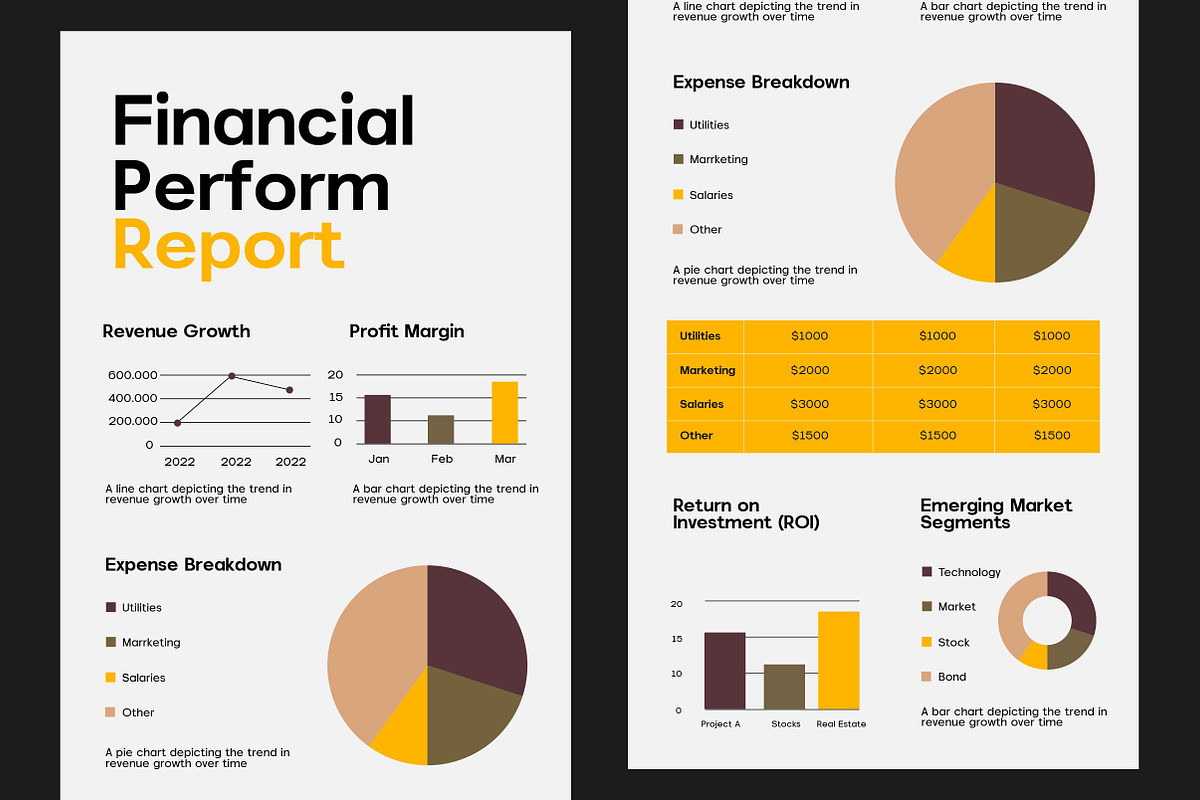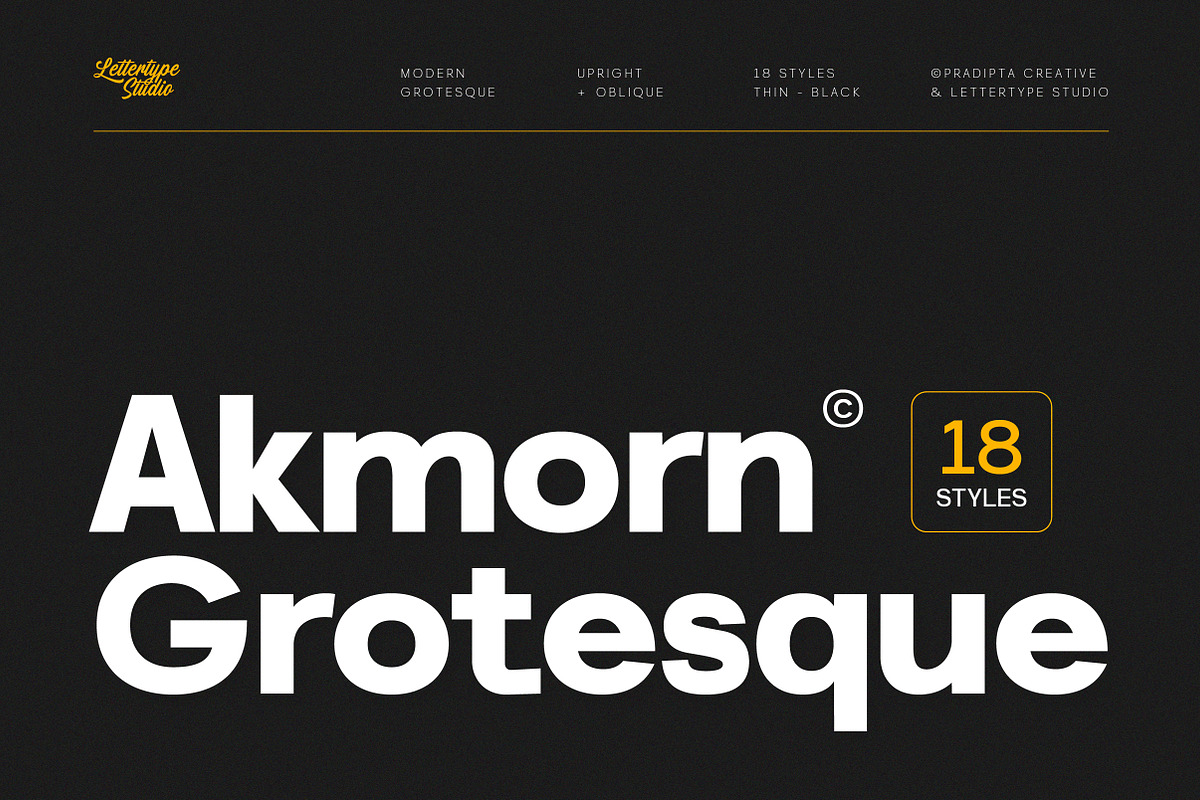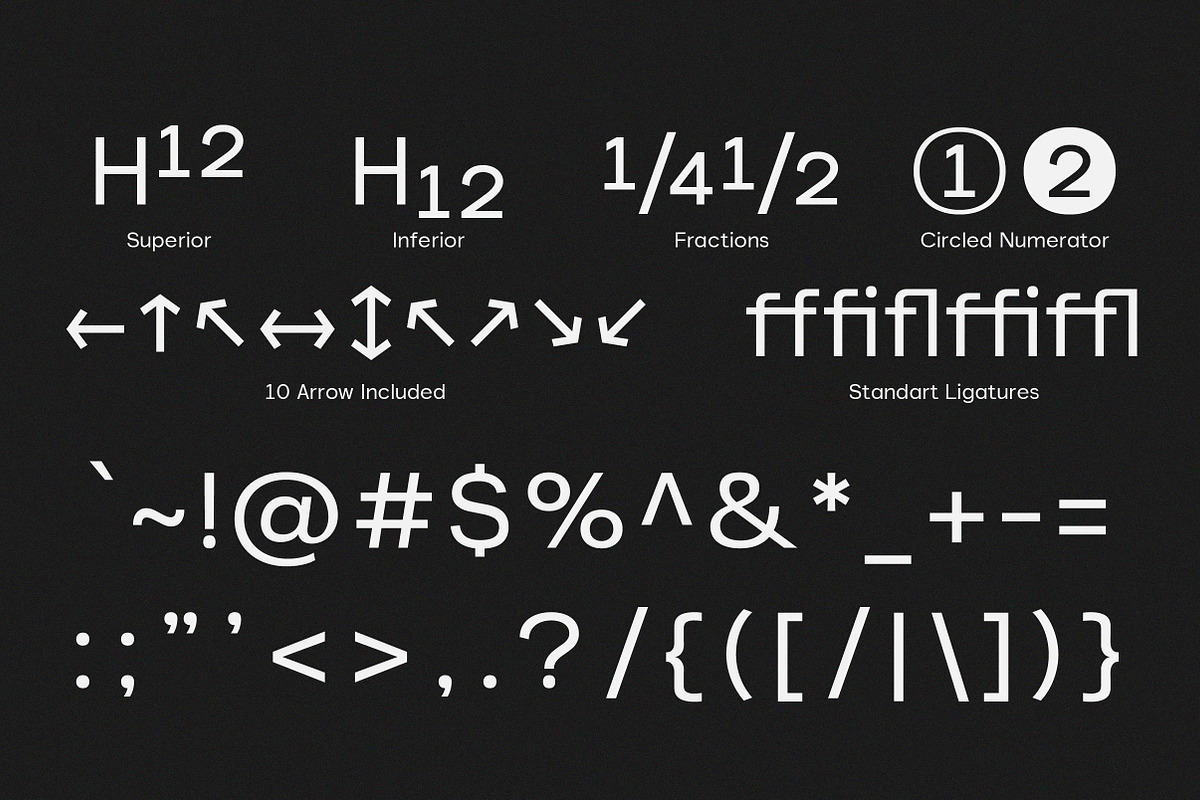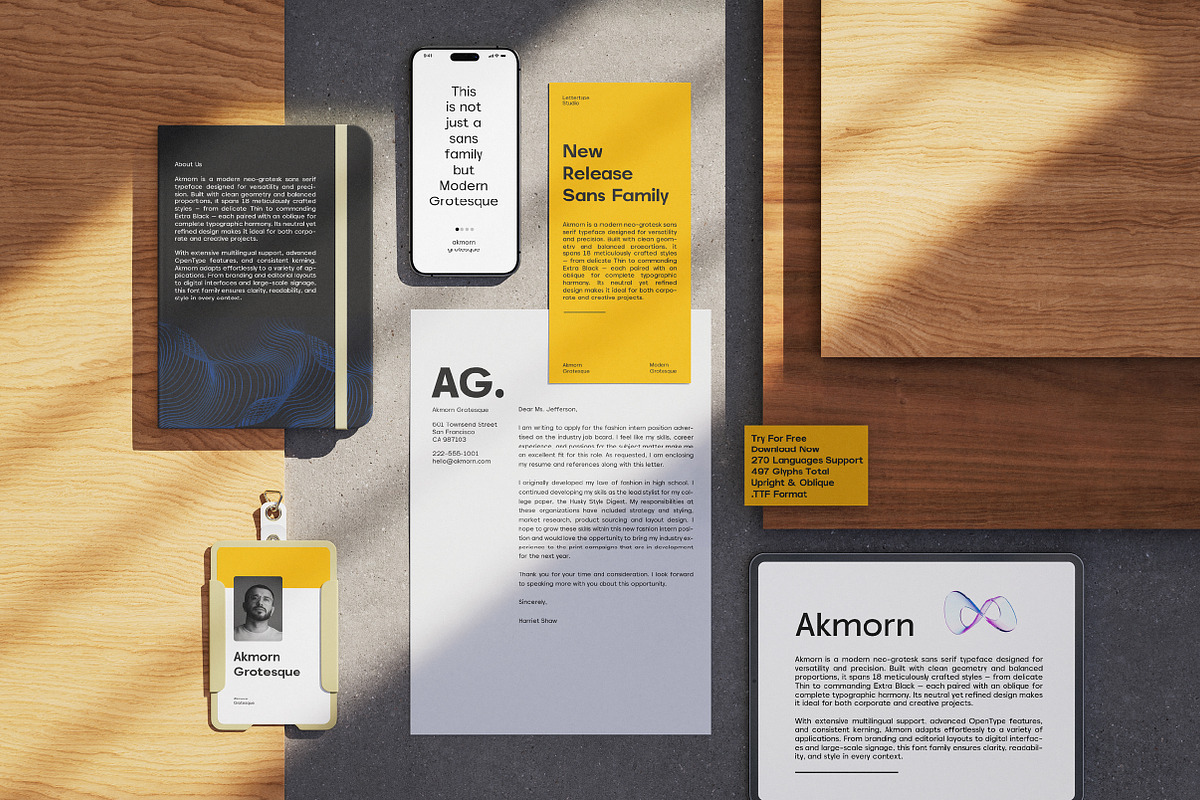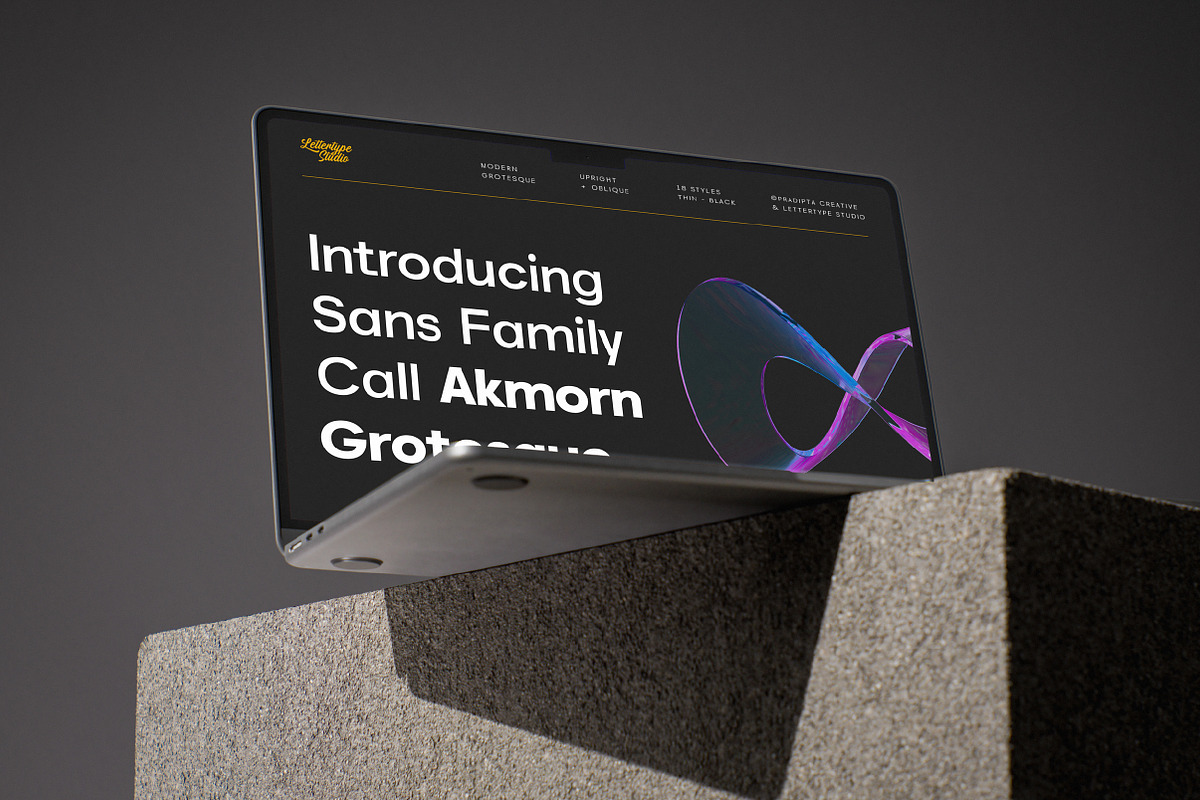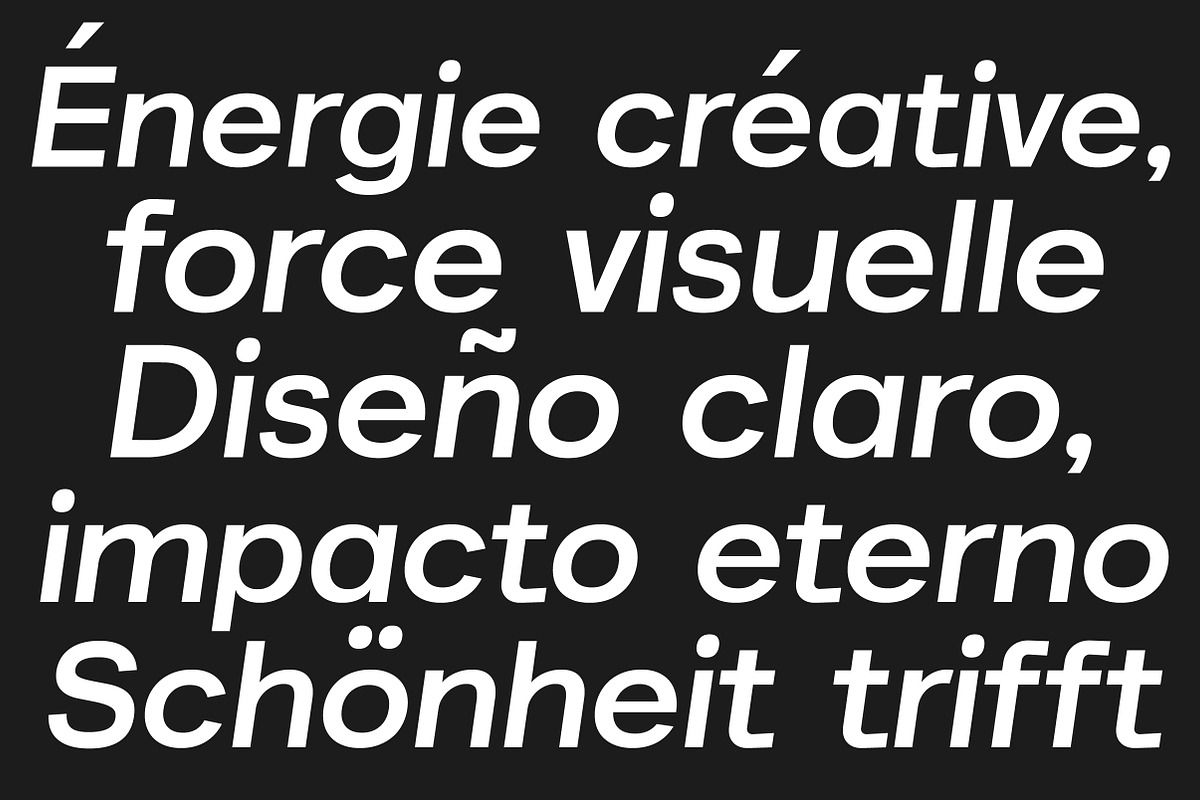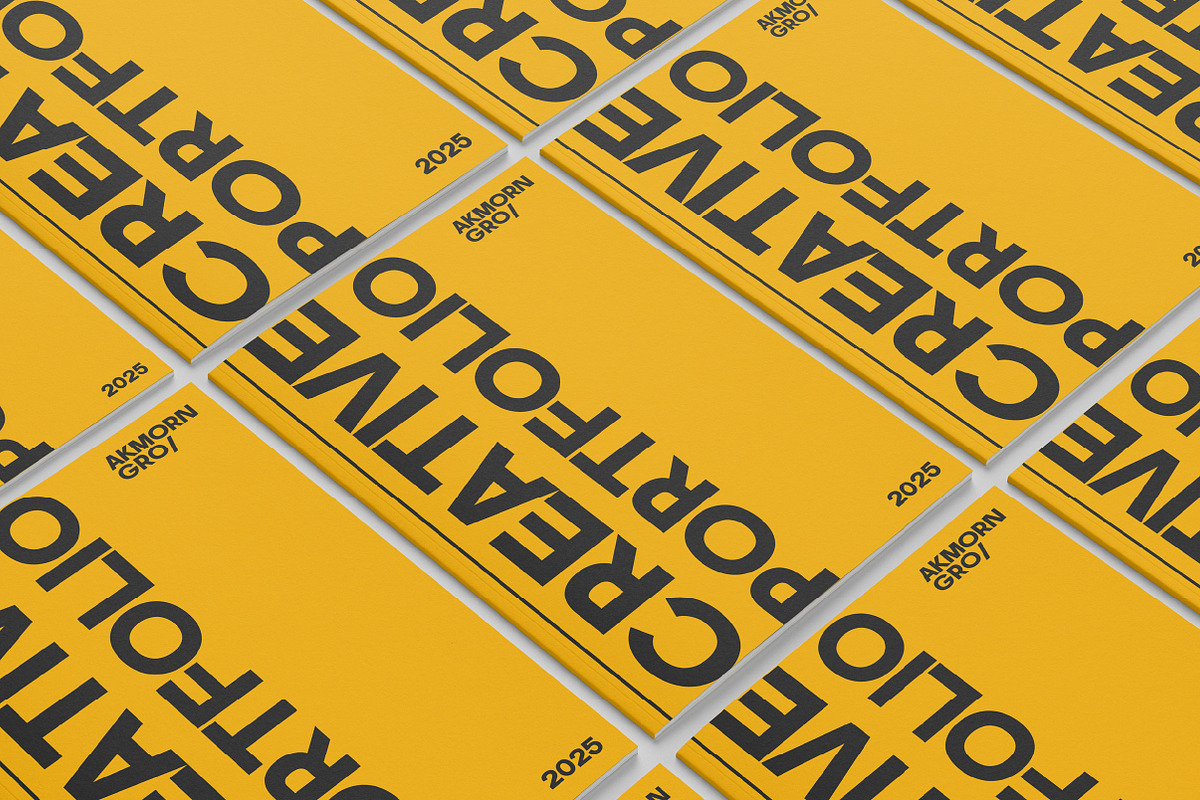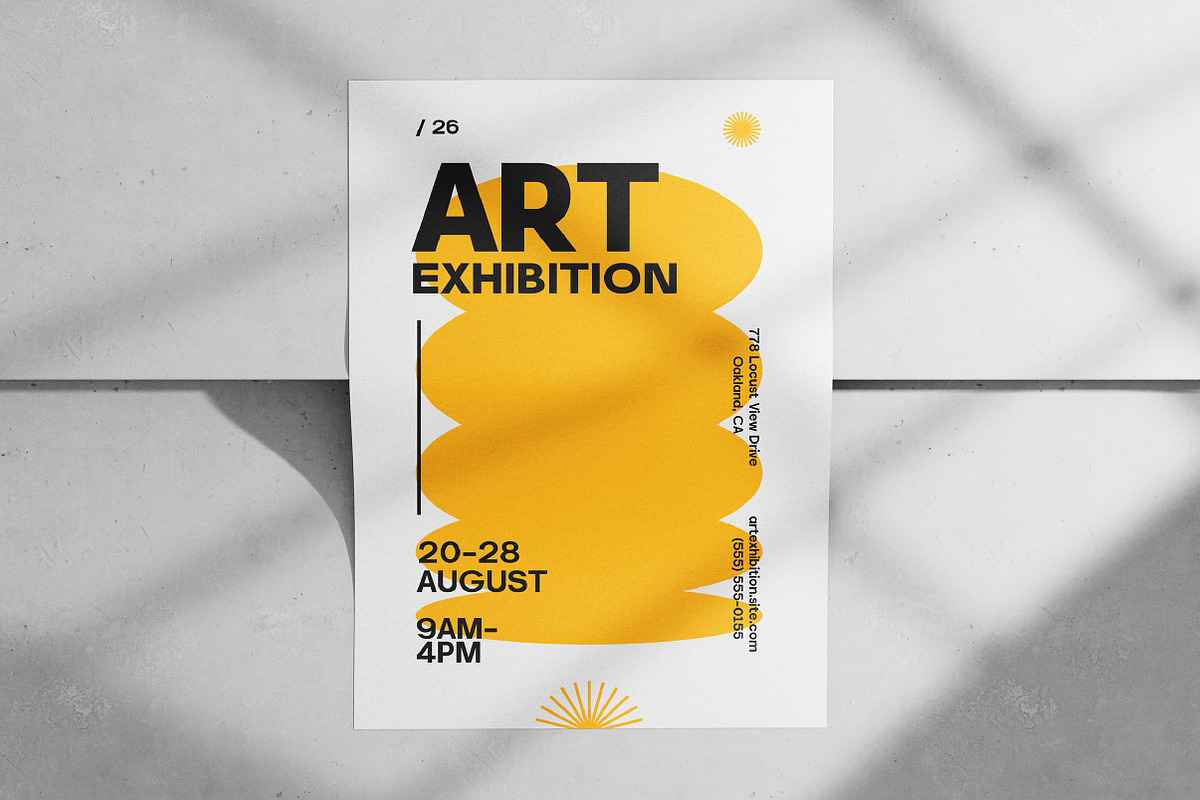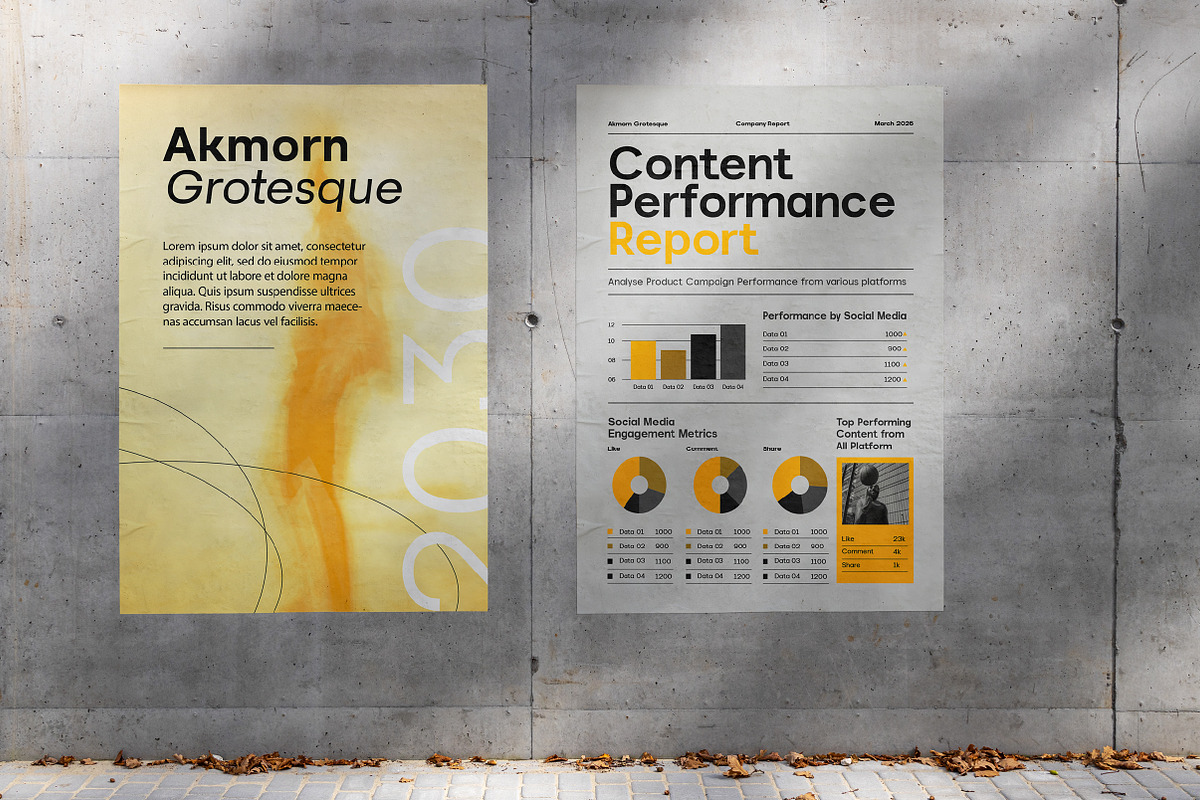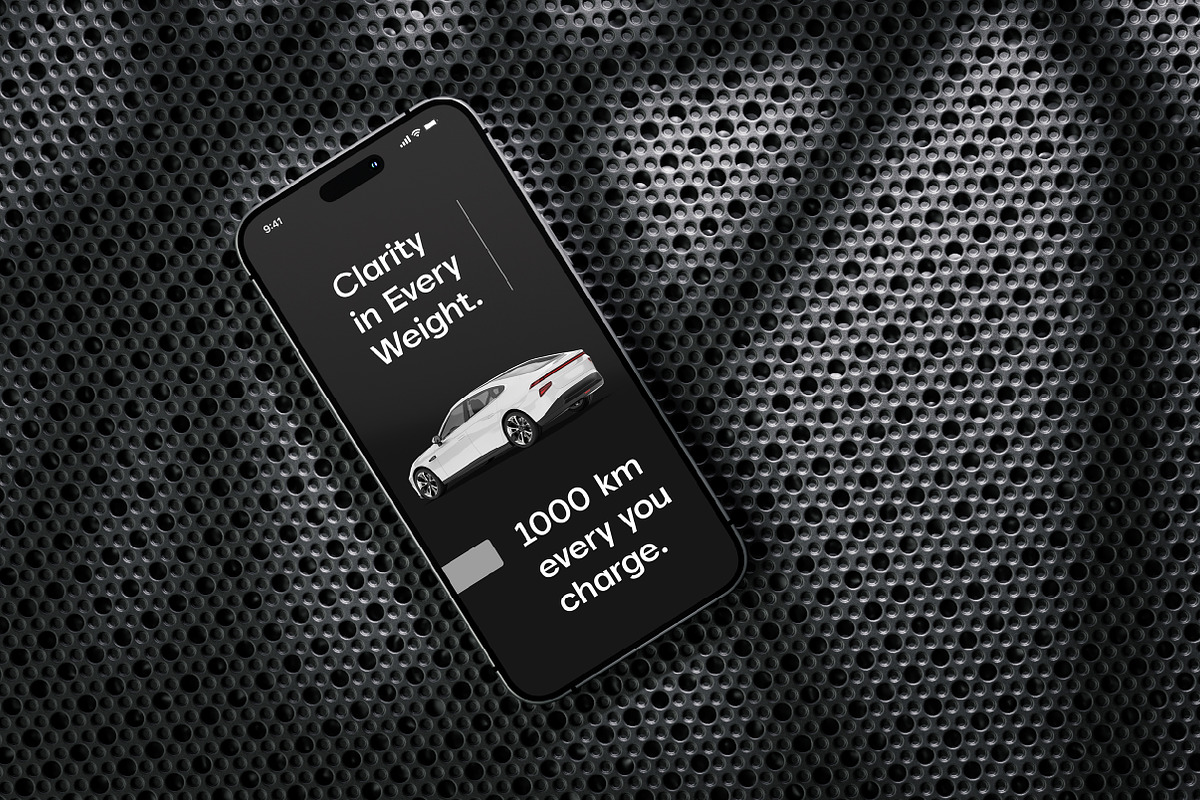
Akmorn Grotesque is a modern grotesque sans serif typeface designed for versatility and precision. Built with clean geometry and balanced proportions, it spans 18 meticulously crafted styles — from delicate Thin to commanding Black — each paired with an oblique for complete typographic harmony. Its neutral yet refined design makes it ideal for both corporate and creative projects.
With extensive multilingual support, advanced OpenType features, and consistent kerning, Akmorn adapts effortlessly to a variety of applications. From branding and editorial layouts to digital interfaces and large-scale signage, this font family ensures clarity, readability, and style in every context.
Akmorn Grotesque Features:
- 18 Styles
- Upright & Oblique
- 503 Glyphs Total
- 270+ Languages Support
- Corporate branding, identity systems & signage design
- Editorial layouts, magazine headlines & advertising spreads
- Web, UI/UX, and digital product interfaces
- Bold logotypes, posters & minimalist marketing visuals
- Packaging and presentations with modern professional tone